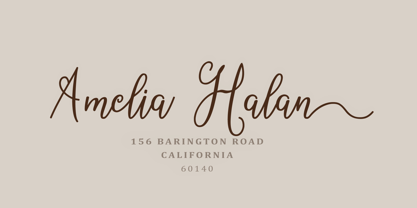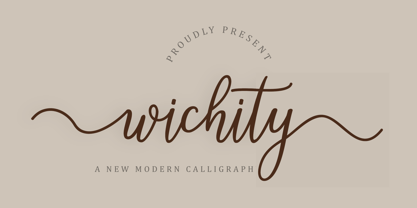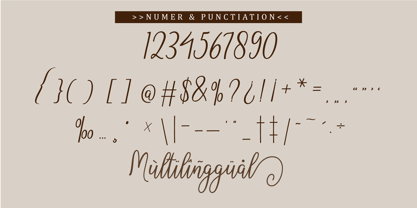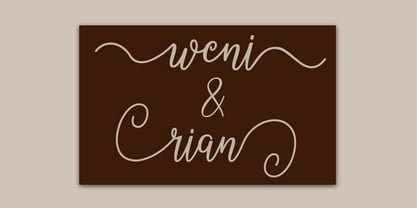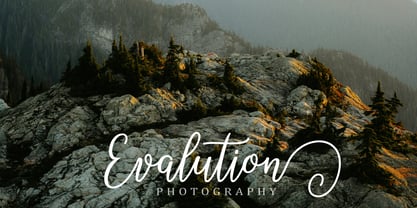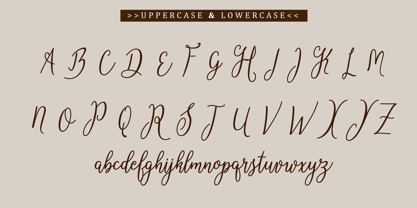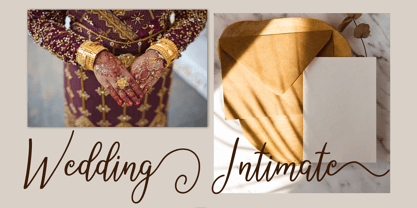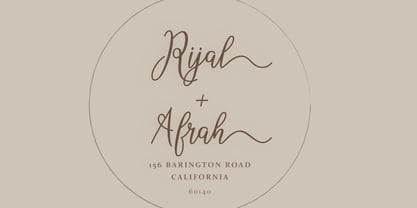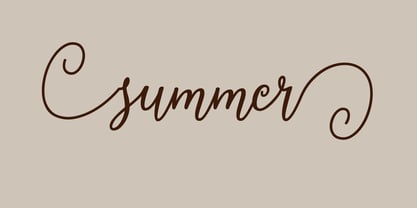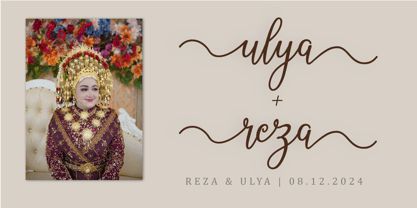
Wichity
“Wichity” is a sophisticated and modern font designed to elevate the elegance of invitations, wedding themes, and fashion branding. With its refined strokes and fluid curves, it captures a perfect balance between classic calligraphy and contemporary style. This font is ideal for adding a touch of luxury to event stationery, branding materials, and editorial designs. Its versatility makes it suitable for everything from formal wedding invitations to chic fashion lookbooks, giving each project a distinguished and timeless appeal.
-Full alphabet with Uppercase and Lowercase A-Z for script
-Numbers for all fonts
-Punctuation and symbols for all fonts
-Alternates Lowercase script
-Ligature Lowercase script
-Multilingual support all fonts